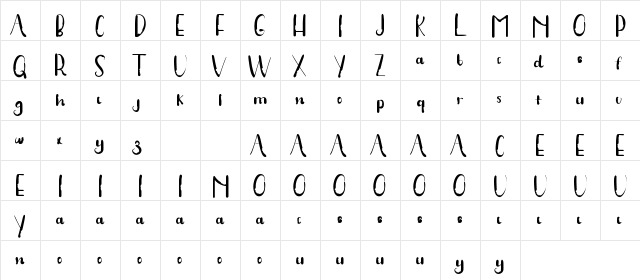
Stay BIG Demo Regular
| Foundry | Edric Studio |
| Designer | Saila Nurissalma & Sarah Suci P |
Design Context for Stay BIG Demo Typeface
Stay BIG Demo is a composed and adaptable typeface that performs quietly and consistently across a wide range of design contexts.